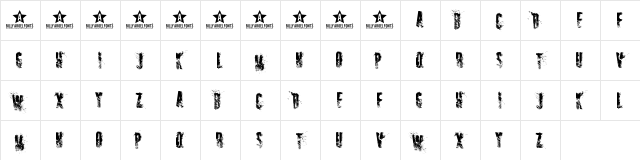
Complete SNIPER Regular glyph index. Displaying only characters natively supported by SNIPER Regular font.
SNIPER is a composed and adaptable typeface that performs quietly and consistently across a wide range of design contexts.